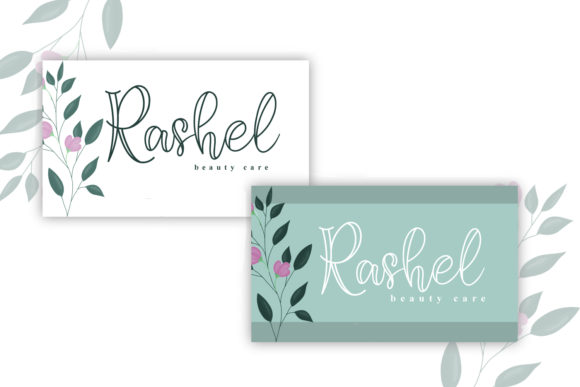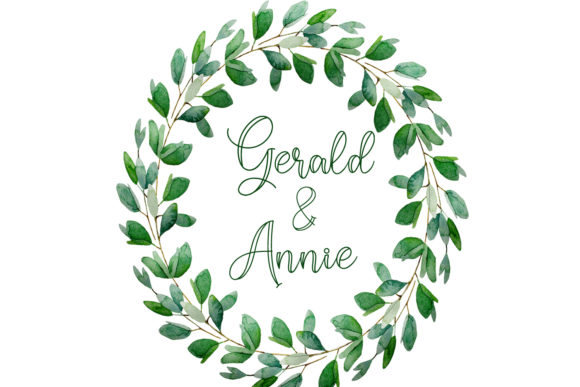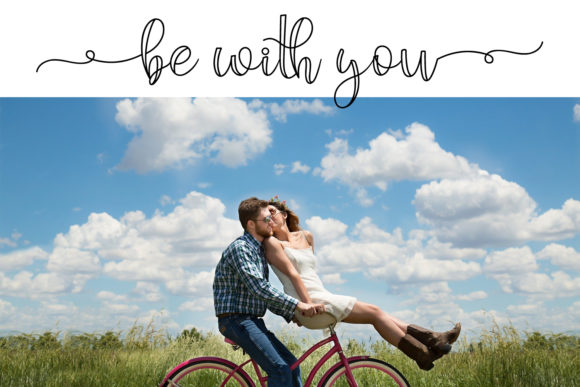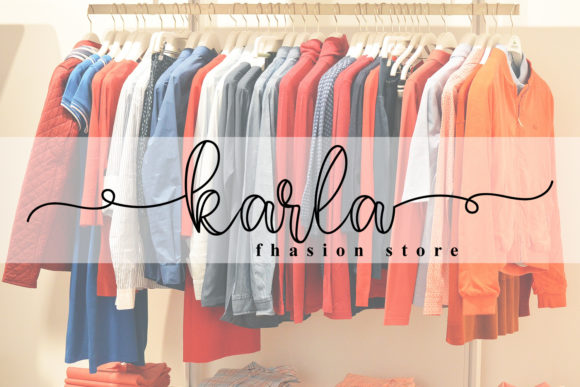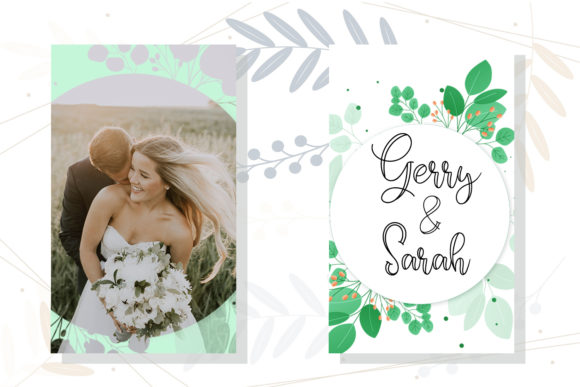
Shadila Font
About Shadila Font
Shadila is an equally charming and elegant. It looks lovely on wedding invitations, thank you cards, quotes, greeting cards, logos, business cards and every other design which needs a handwritten touch.